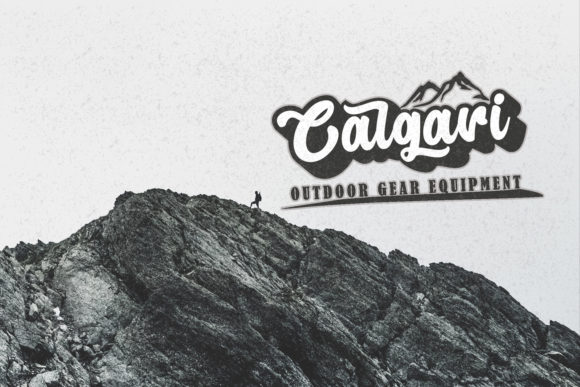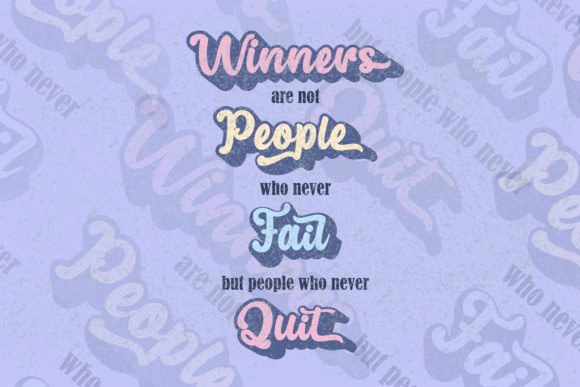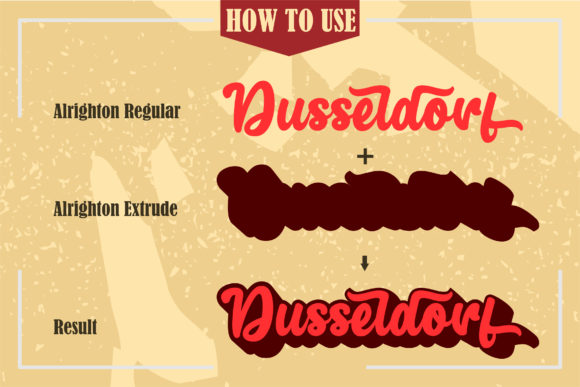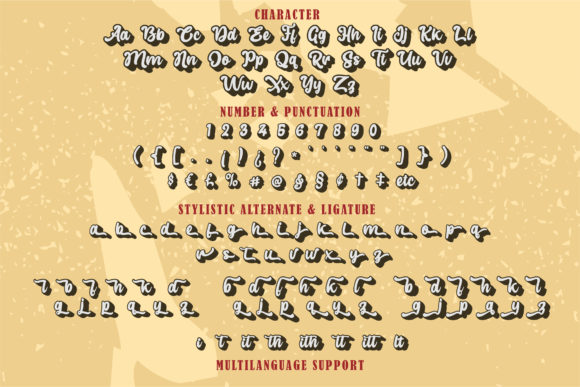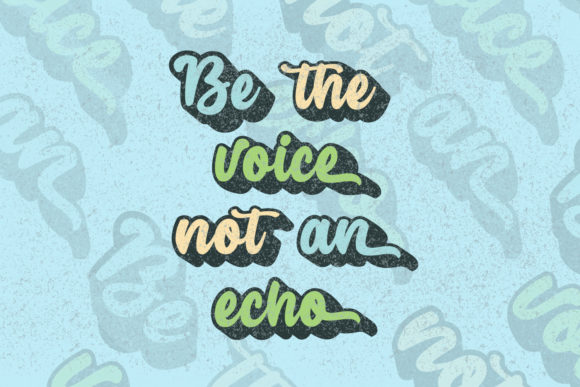
Alrighton Font
About Alrighton Font
Alrighton is a gorgeous, retro styled and bold handwritten font, crafted to give your headlines and logotype projects a stylish touch. This font reads as strong, confident, and dynamic and can add tons of nostalgic character to your designs.